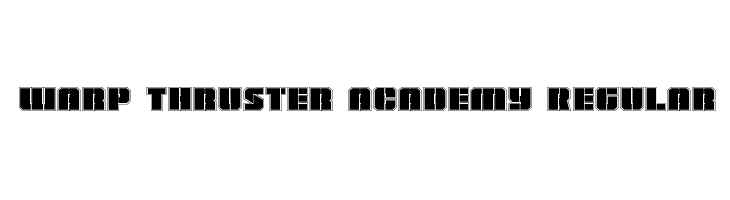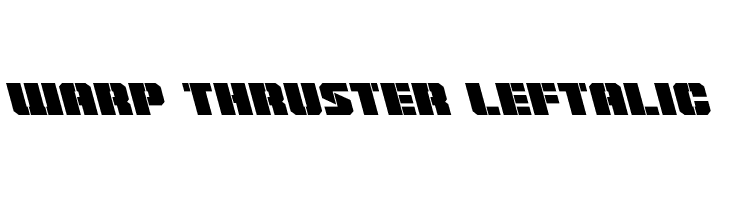
A bold, geometric font with a futuristic, italicized style.
A bold, angular, and futuristic font with expanded and italicized characters.
A bold, geometric font with a futuristic and industrial design.
A bold, condensed, and italic font with a futuristic and dynamic design.
A futuristic, industrial font with bold, geometric shapes and layered line patterns.
A bold, italic, futuristic font with geometric, blocky characters.
A bold, geometric, and condensed font with a futuristic industrial style.
A futuristic, italicized font with layered lines and a dynamic, modern style.
A bold, geometric font with a futuristic and strong design.
A bold, futuristic italic font with sharp, angular edges.